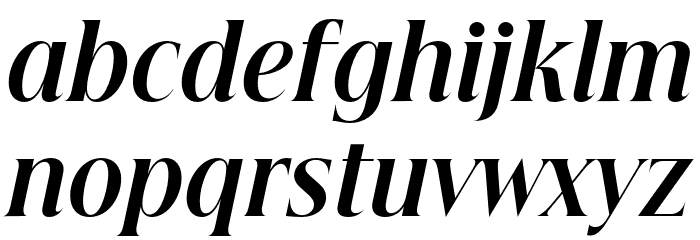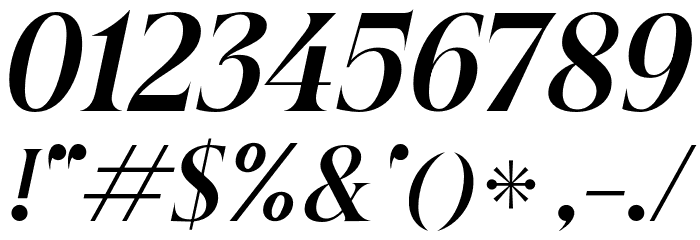
Beautique Display Condensed Bold Italic Font
This font exhibits a sophisticated and elegant style, characterized by its condensed and bold italic form. The letters are sharply defined with a high contrast between thick and thin strokes, giving it a dynamic and energetic appearance. The italic slant adds a sense of motion and fluidity, while the condensed width ensures a compact and efficient use of space. The uppercase letters are tall and commanding, while the lowercase letters maintain a graceful and flowing form. The numerals are consistent with the overall style, offering clarity and readability. Special characters are thoughtfully designed to complement the letterforms, making this font versatile for various applications.
A sophisticated, condensed bold italic font with high contrast and elegant style.
- Proposed Projects: Ideal for luxury branding, fashion magazines, elegant invitations, and high-end product packaging.
- Character Spacing: Tight
- Overall Style: Elegant
- Use Case: Logos, Headlines, Branding